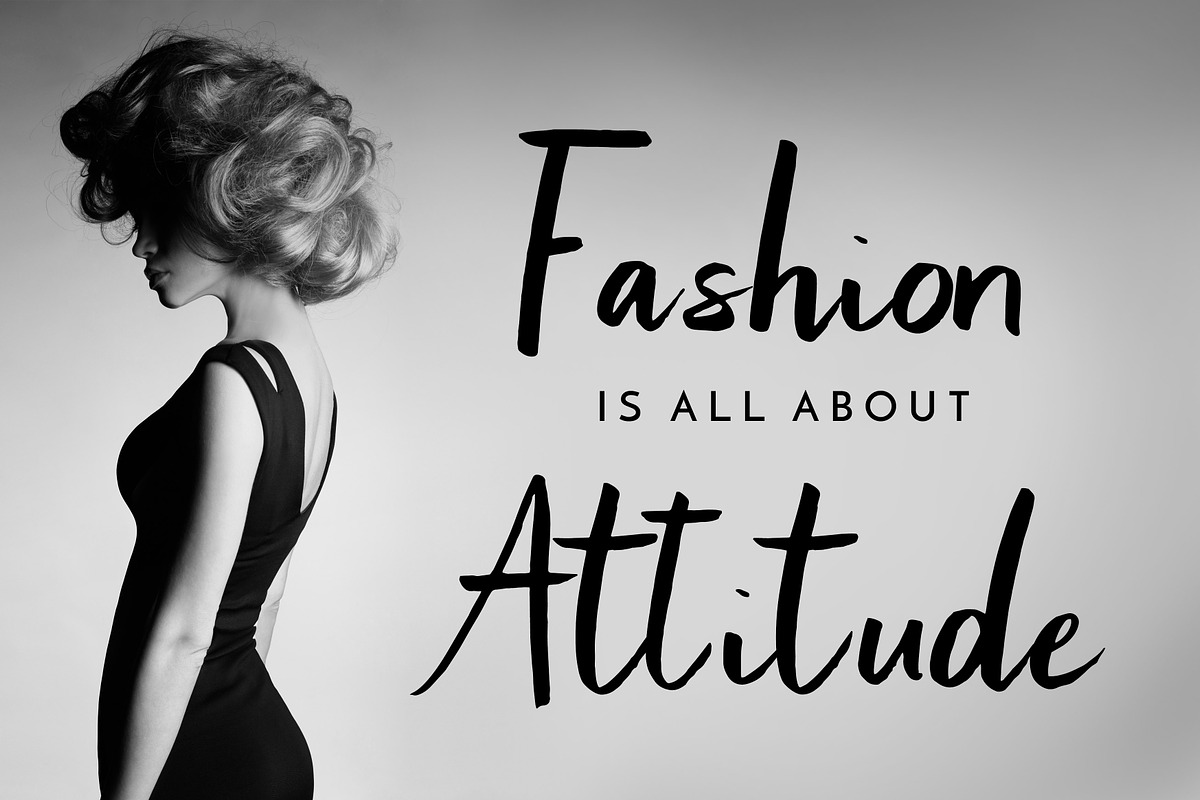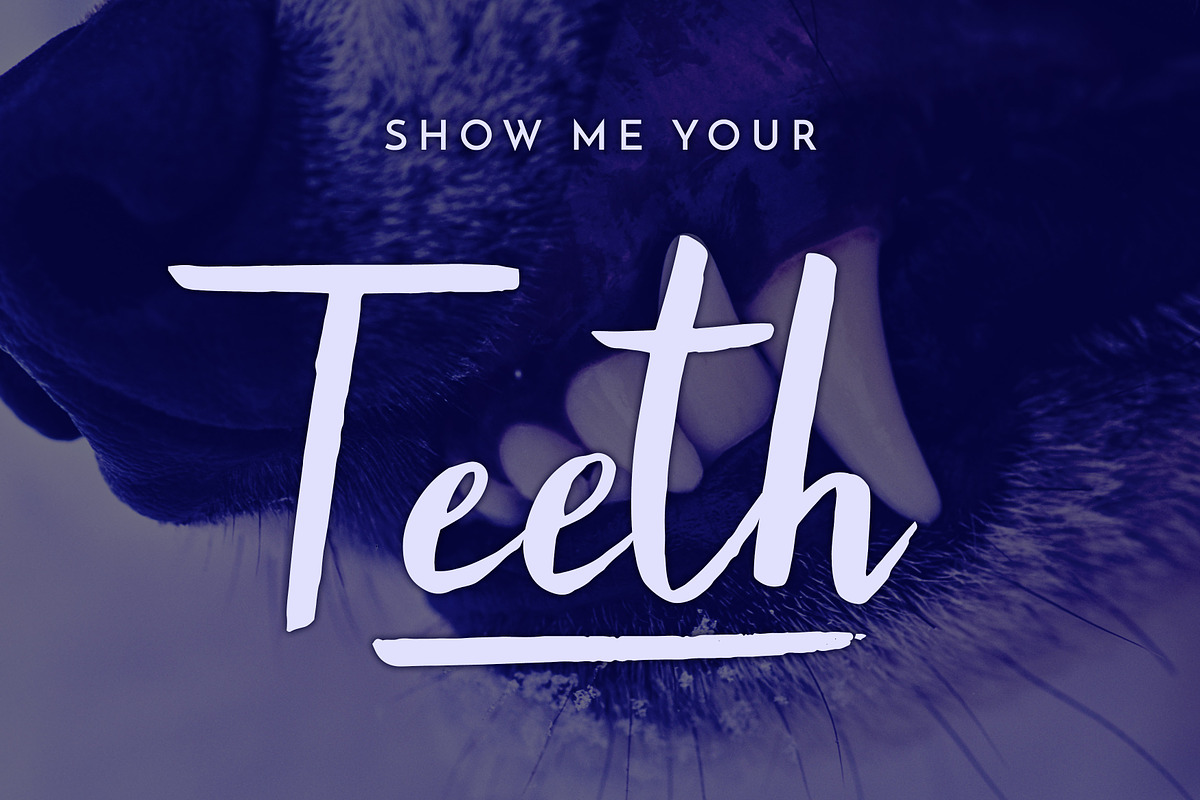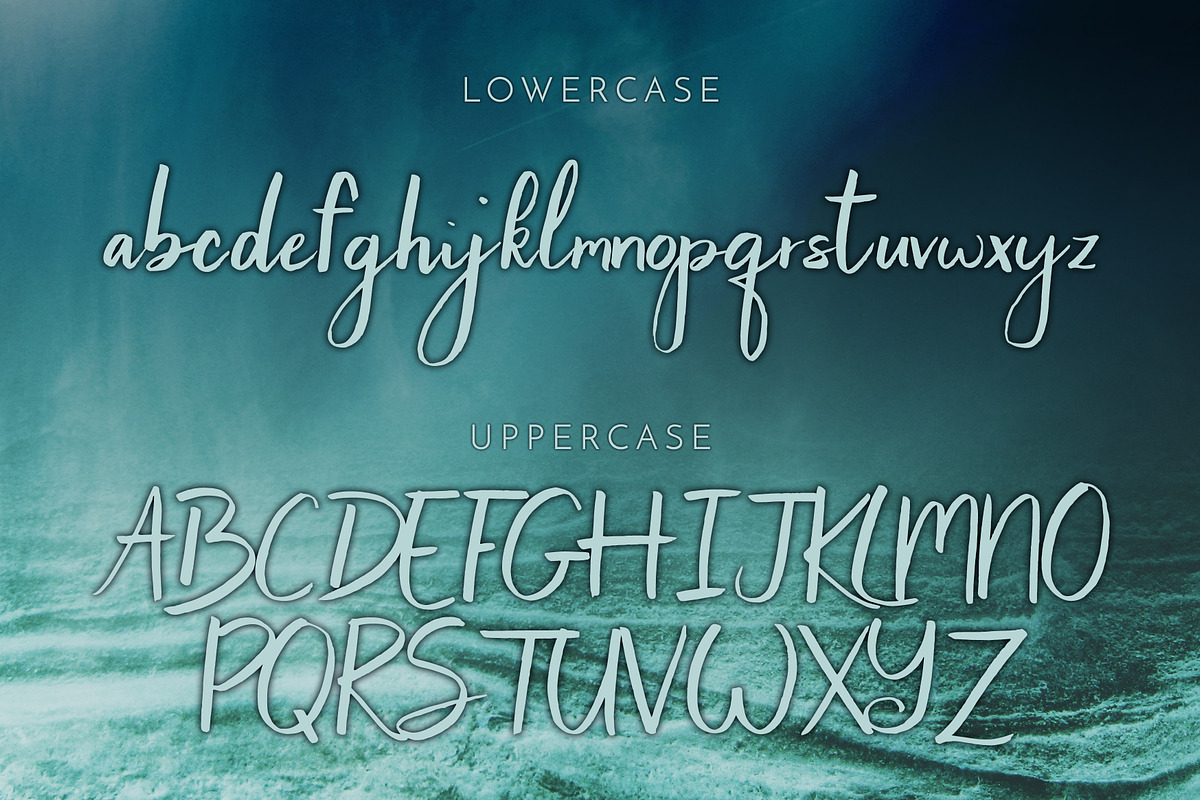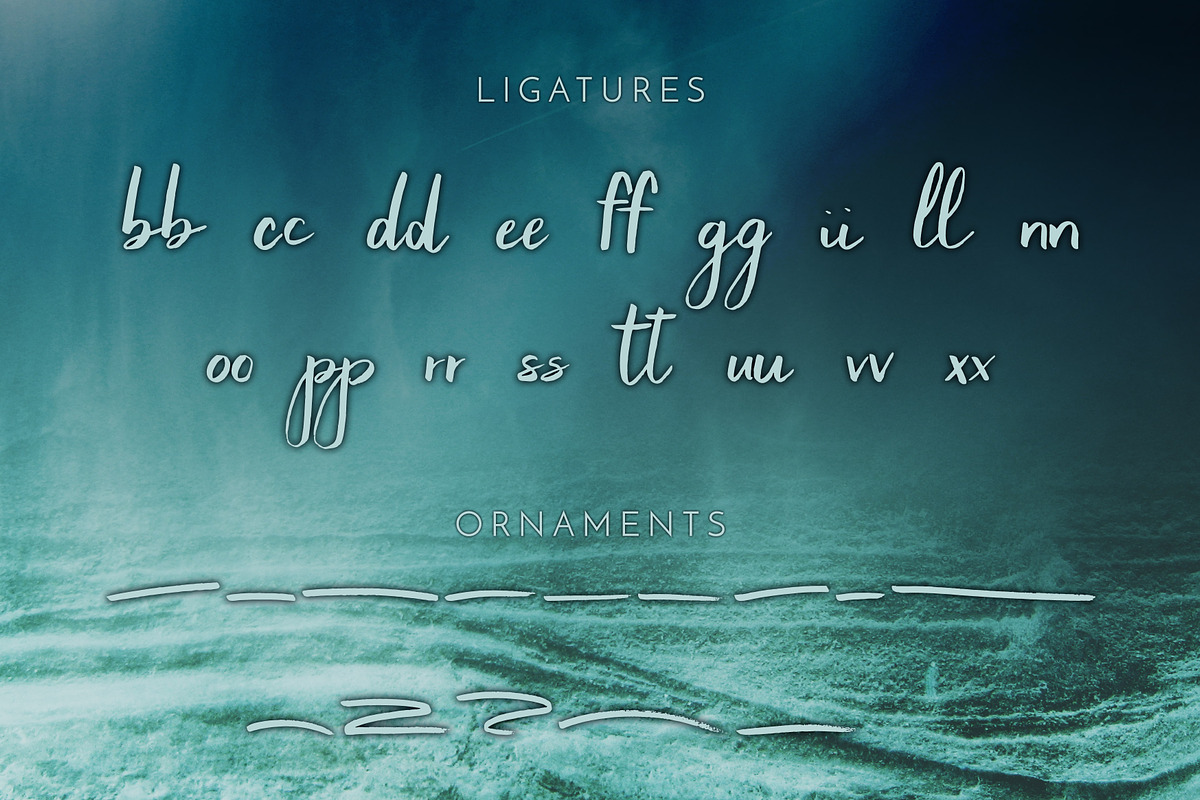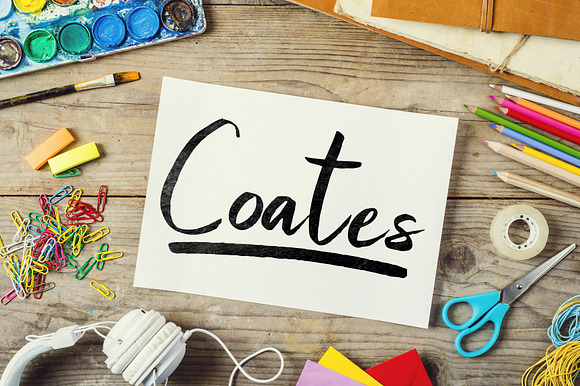
Coates Typeface
Coates is a brand new handmade brush font. Casual and easy, Coates is highly readable, with its own ligatures and ornaments.
Hand drawn with a Tombow pen, Coates is perfect for your next project.
- Casual and easy, Coates is highly readable, with its own ligatures and ornaments.
Why Coates Typeface is worth a look
Coates Typeface by Hanna James fits naturally into Branding, posters, packaging, typography.